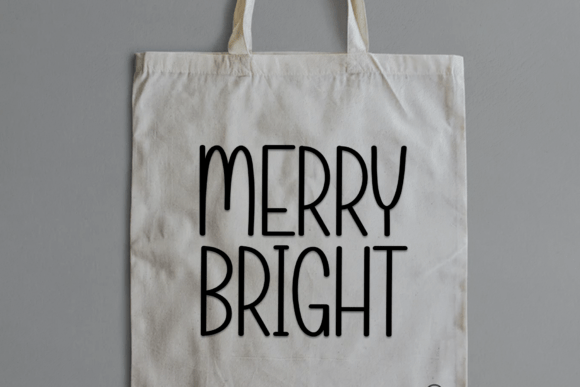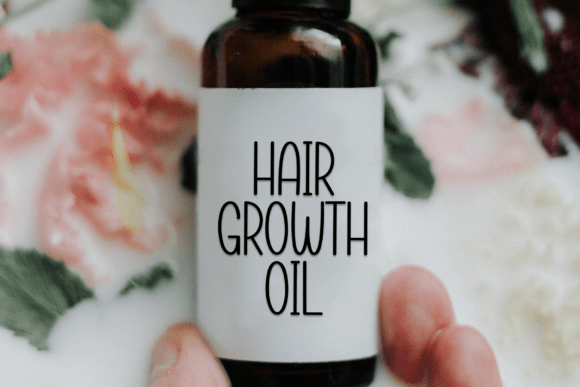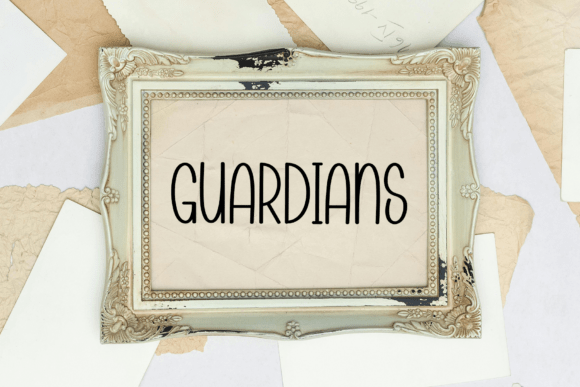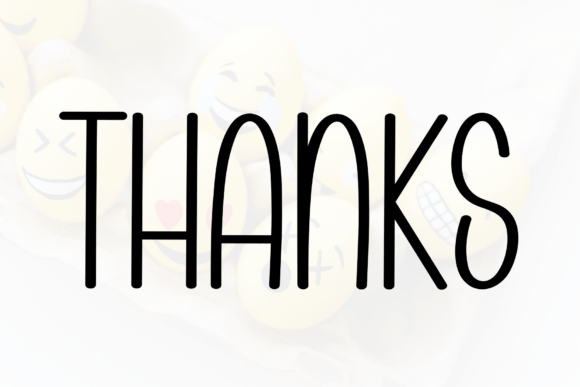
Introduction to Newyear Quality Font
Newyear Quality is a charming handwritten sans-serif font filled with a sense of heartfelt perfection.
Its smooth strokes and organic lines evoke a relaxed atmosphere, making it perfect for a variety of design projects Whether used for branding, invitations, or social media graphics.